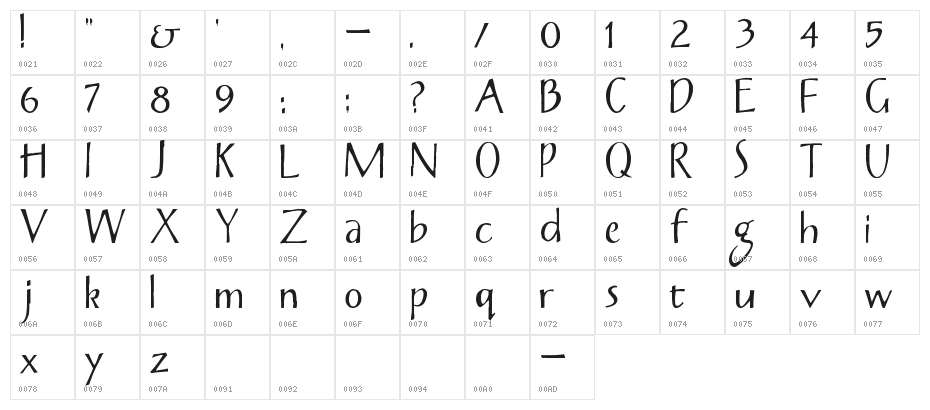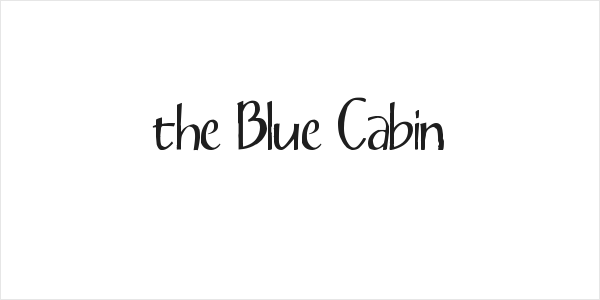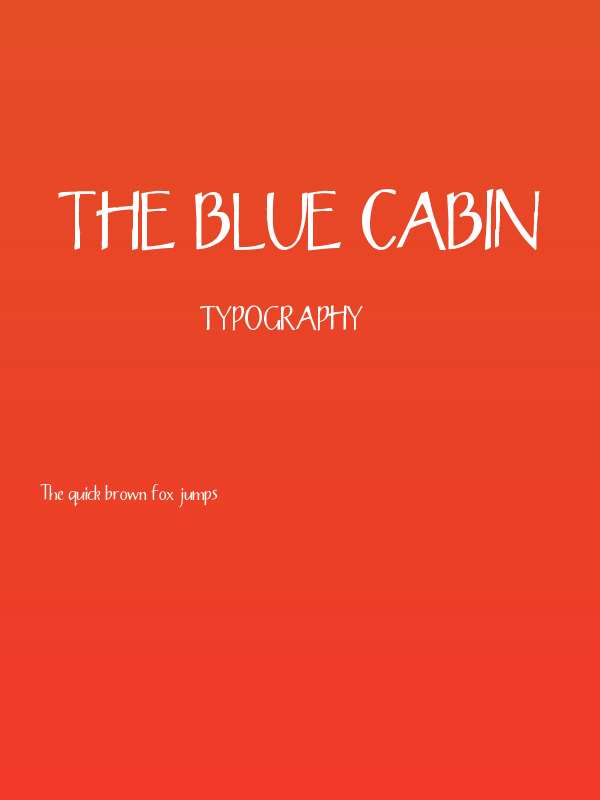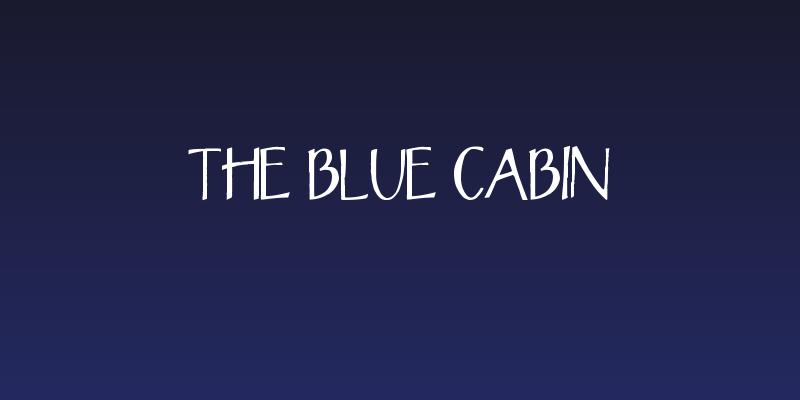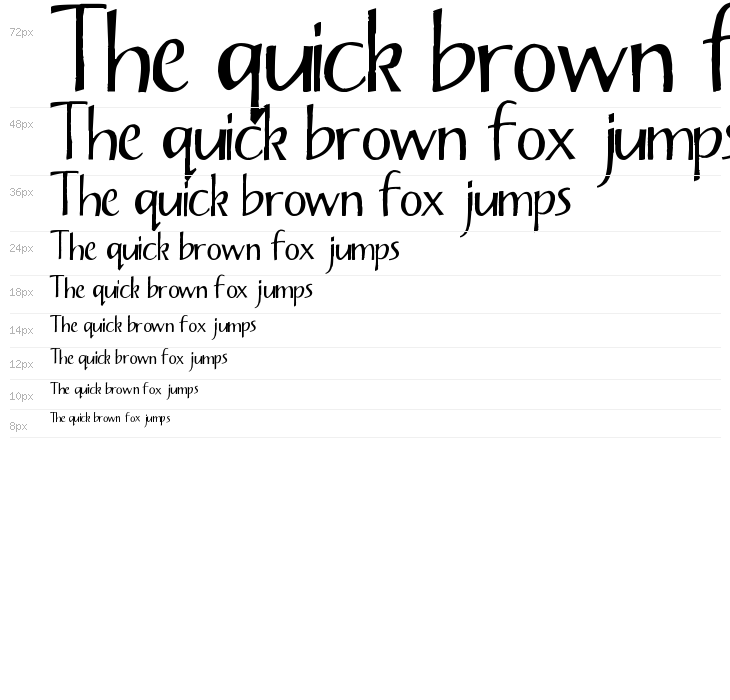
the Blue Cabin Font
the Blue Cabin Description
This font features a unique, hand-drawn style with an organic and slightly irregular appearance. The letters are tall and narrow, with a playful and whimsical character. The strokes vary in thickness, adding a dynamic and lively feel to the text. The uppercase letters are bold and prominent, while the lowercase letters maintain a consistent flow with slightly exaggerated curves. Numbers are distinct and maintain the same playful style. Special characters are creatively designed, matching the overall aesthetic. This font is ideal for projects that require a personal touch or a creative flair.